In this video, Carol DuBosch, Sharon Zeugin, and Mike Gold talk with Heather Martinez about the event's inspiration to celebrate their connection and raise funds for Heather and Ray Martinez.
Where the Sweethearts shared...
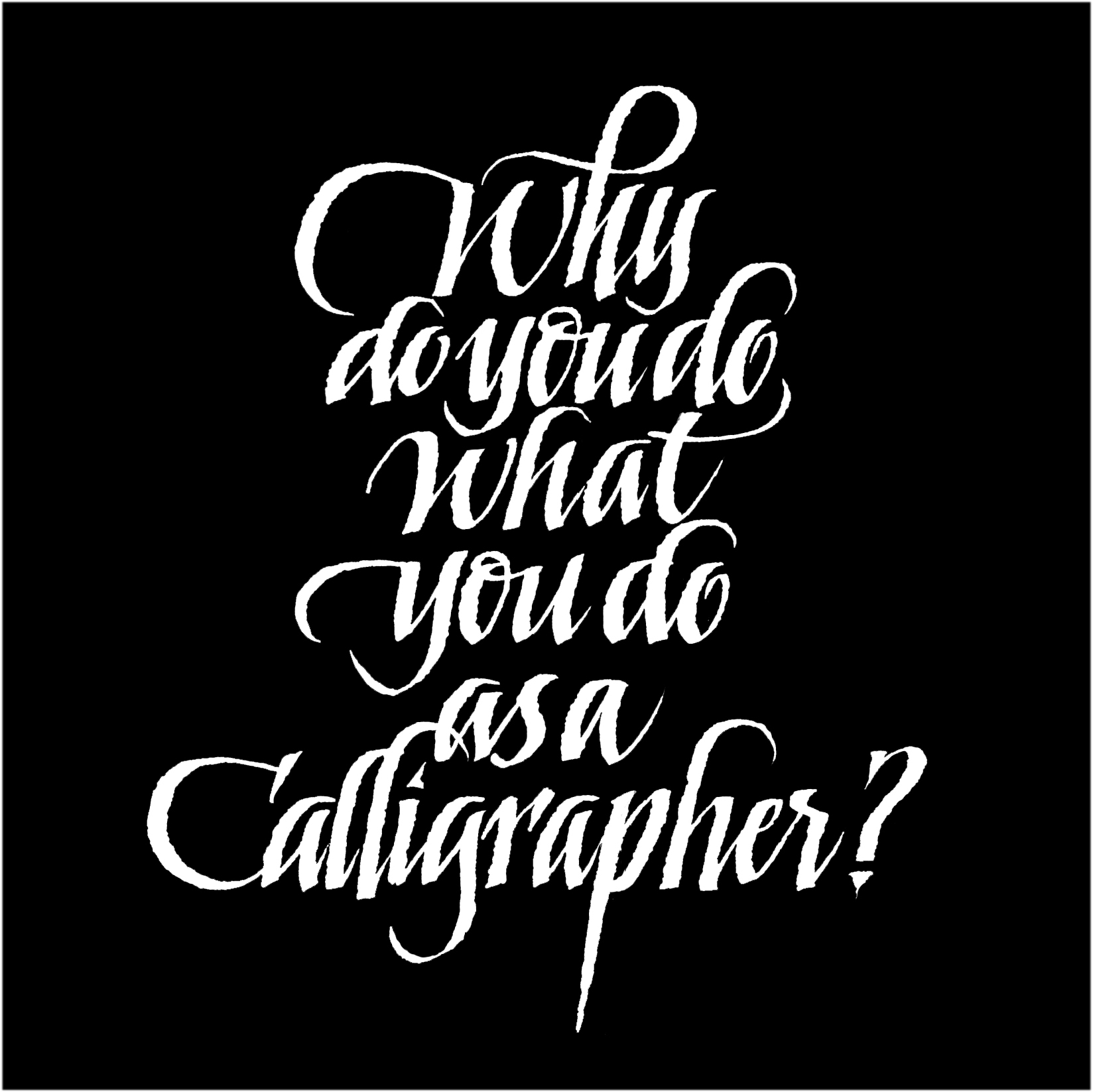
"When the student is ready, the teacher will appear." —Buddha
When you find mentors who are so generous, kind, and wholeheartedly care about your wellbeing, hold on for the ride!
Oftentimes, mentors put us before themselves. Here's a chance to hear their story as the Sweethearts of Lettering share inspirational projects and stories.
- Link to an inspiring recorded session featuring the Sweethearts of Lettering:
- Carol DuBosch
- Sharon Zeugin
- Mike Gold
Context
Three teachers appeared to Heather Martinez in 2016, the start of her lettering year, when she attended her first international calligraphy conference A Show of Hands in Asheville, North Carolina.
Four years later, when the pandemic changed how these three calligraphers could reach their students, Heather taught them to adapt to teaching online.
This Summer, Heather and Ray Martinez faced a string of major medical issues. The calligraphy and visual practitioner communities have been incredibly supportive. This session, driven by the Sweethearts of Lettering, is a mutual exchange of appreciation.
About the Sweethearts
Any day that I can open a bottle of ink, is a good day. It gets even better if I can create art, make a mark-making tool, or teach what I know to someone. Words are my muse and I love being able to use them as a lettering artist. When I hear the words, I ponder them, and savor them for a spell and then interact with them using art materials. It is absolutely the best job ever.
I have been a calligrapher in Portland, Oregon since I was first introduced to nibs and ink in 1959 as a high school art student. In the 58 years since, I have gained a degree in Graphic Design and have studied with every major calligrapher in the US and Europe. I have been teaching college level and private classes in the Northwest along with workshops throughout the United States and most recently in Italy. I have directed three International Calligraphy Conferences in Portland, bringing 500 scribes together for a week of studying and sharing.
I am interested in every aspect of the field of calligraphy, from the formal invitation to writing on walls. I enjoy seeking out ways to stretch the boundaries of my art. As a life-long learner, I am always looking forward to the next new thing.
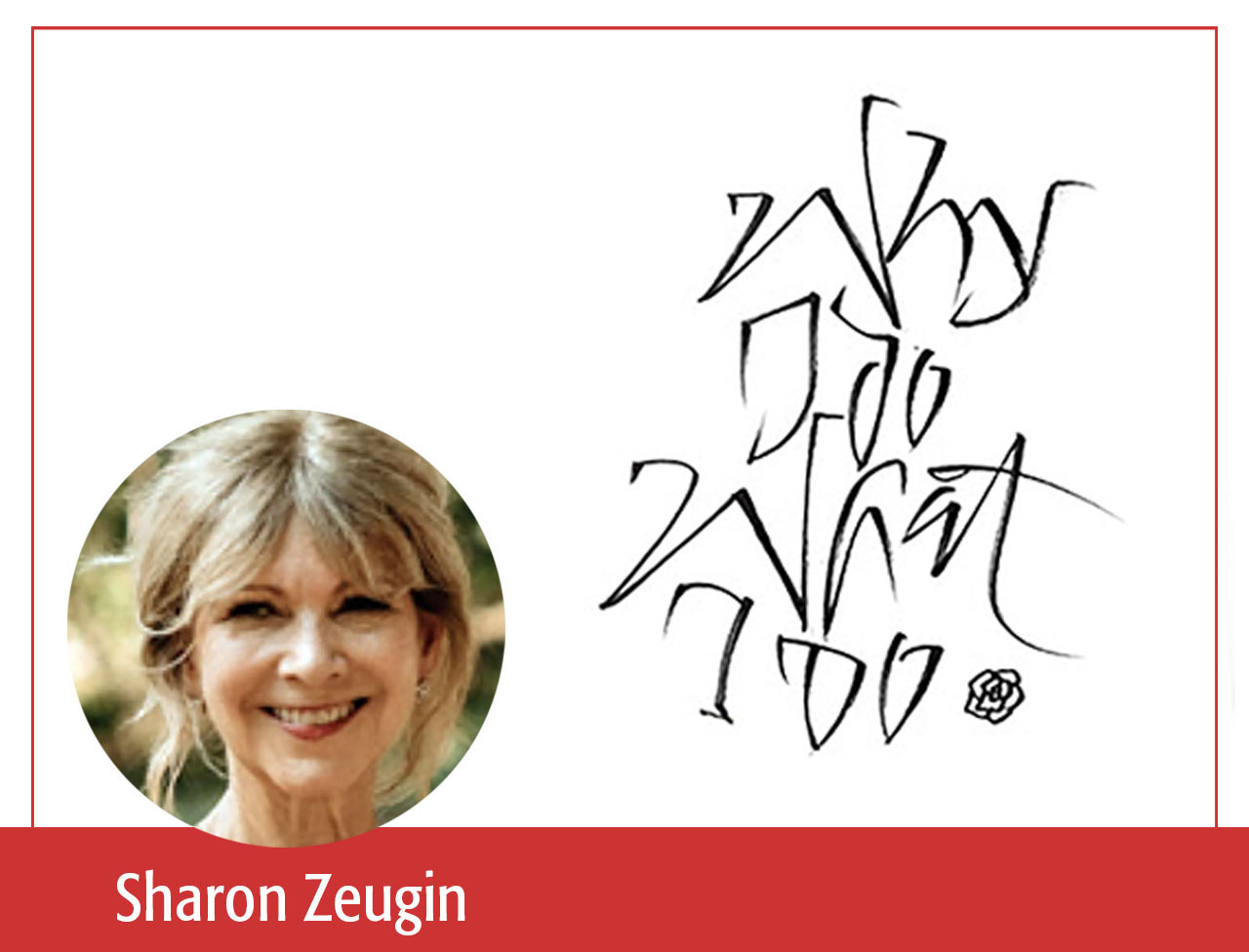
Sharon Zeugin makes art, teaches, and facilitates workshops in her Austin, Texas Studio, and throughout the USA, Canada and Italy. In addition to being a faculty member of numerous international calligraphy conferences, Sharon teaches locally in her studio and at the Austin Contemporary Art School. Her award winning work appears in the Speedball Textbook, Letter Arts Review, The Calligrapher's Engagement Calendar, Somerset Studio Magazine, and the Lark Book,The Art and Craft of Hand Lettering. In addition to teaching & exhibiting her work, she works as a graphic recorder and sketch note artist.
Influenced by her training as a therapist, Sharon seeks to cultivate a safe classroom environment in which respect for body, mind and spirit are as important as skill building; where students are encouraged to experience art making as an experimental, intuitive and mindful practice. Whether teaching courses in traditional or contemporary calligraphy, mixed media art, art journaling, drawing, sketching or painting, Sharon's goal is to help students get over fear of the blank page. When she is not teaching, sketching or painting, Sharon is busy performing with Austin Samba School, swimming, dancing, walking, tandem biking with her husband.
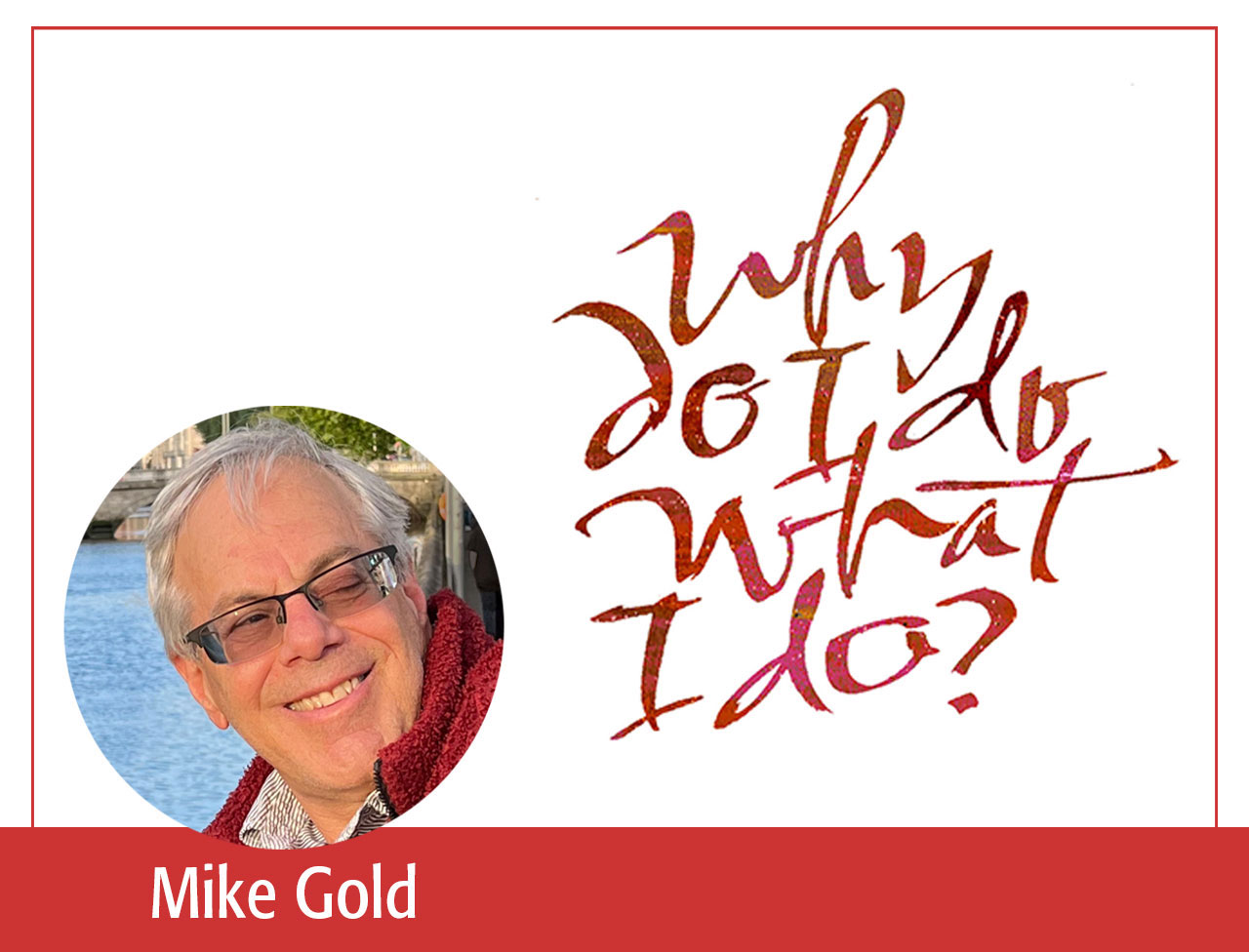
Mike Gold worked as a commercial lettering designer for over 35 years, mostly in the social expressions business. But his real passion is exploring the corridors of calligraphy that have been less traveled, the path where words and letters are design elements with which to play with line, shape and form, where creating a visual statement is more important than writing a readable text. In both his professional and personal art, Mike breaks traditional rules to create contemporary, non-traditional work.
Mike has an M.A. in Visual Communications and has studied with many outstanding lettering and design masters over the years. Mike has taught around the country and at several international calligraphy conferences. His personal work has been featured in Letter Arts Review many times over the past 25-plus years. He has been a juror for the Letter Arts Review annual and his work is in many private collections, including the Berlin Calligraphy Archive. He is the author of Lines to Live By (available through John Neal, Bookseller), which is Mike's take on being a non-traditional calligrapher in the 21st century.